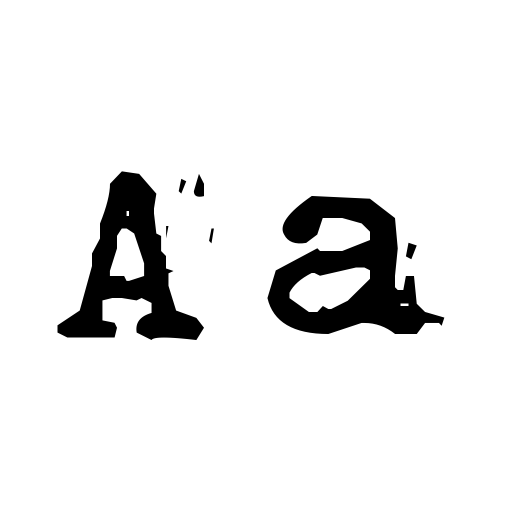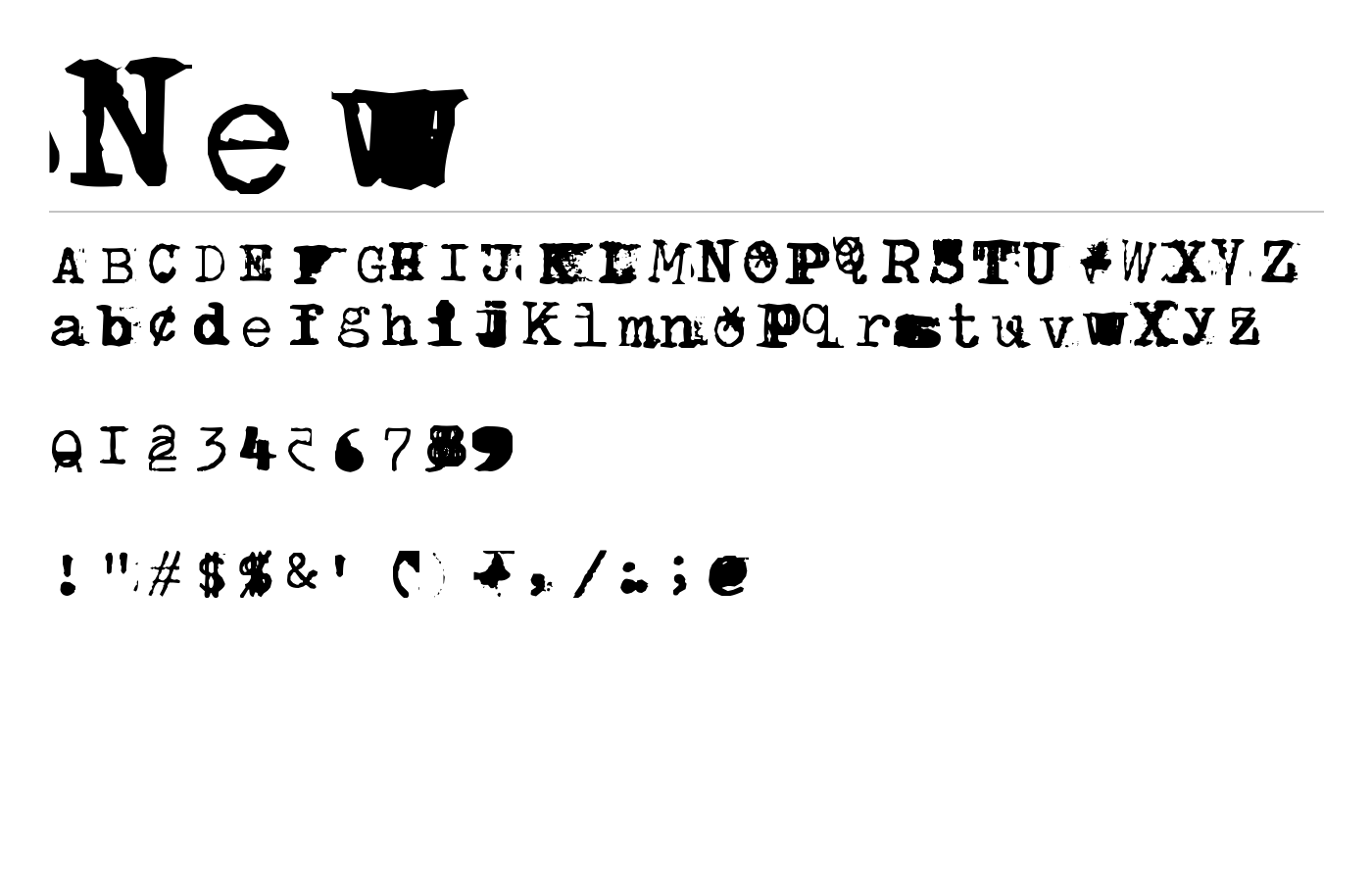
BrentonscrawlType is a distressed serif font with a rough, typewriter-like texture that gives it a vintage, worn-out feel. Its irregular shapes and varying stroke weights create a grungy, handcrafted character, making it ideal for edgy, retro, or artistic designs that want to convey authenticity and a rebellious spirit. This font works best for posters, album covers, and creative branding where a bold, expressive look is desired.
BrentonscrawlType Font
About BrentonscrawlType Font